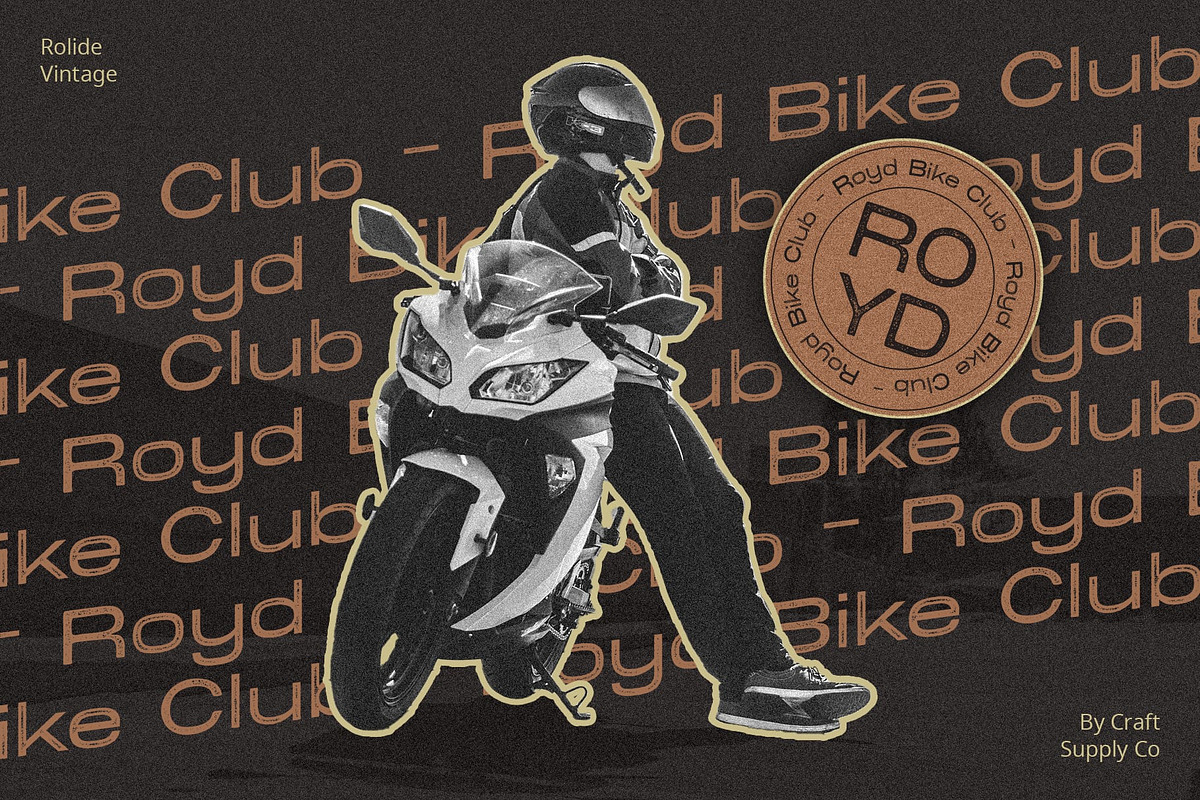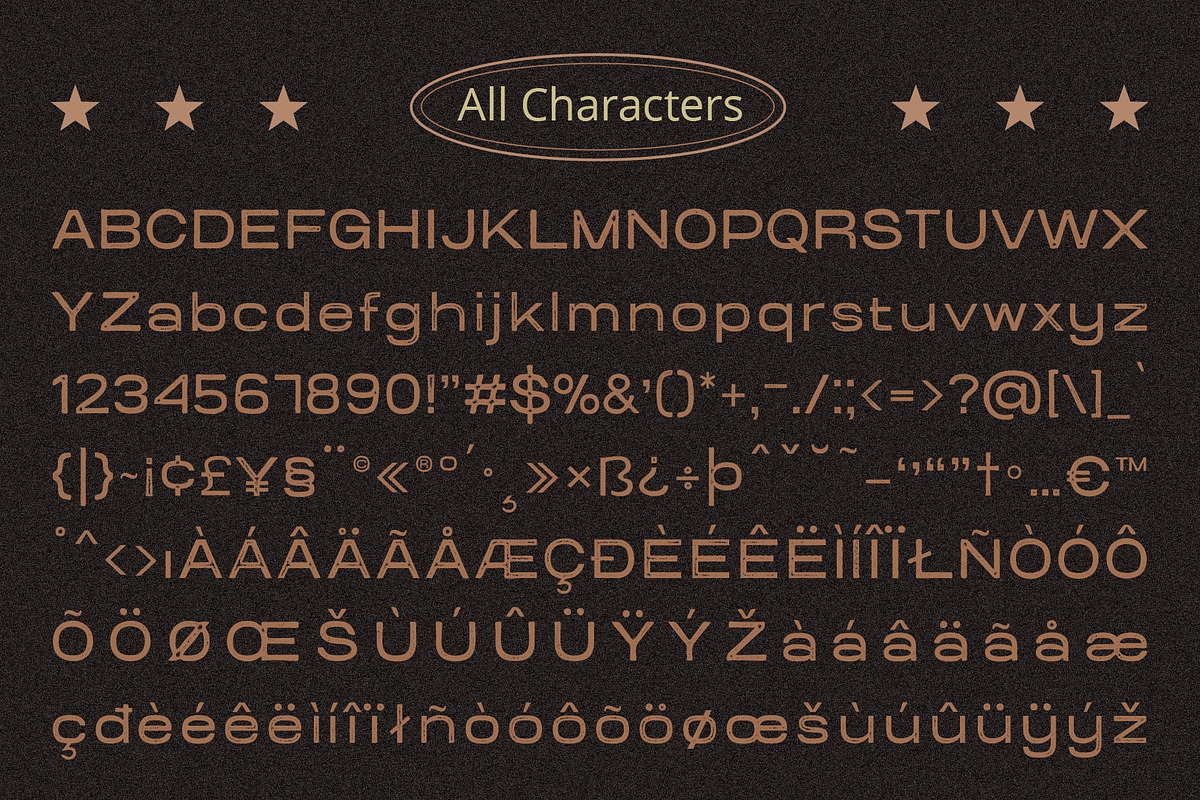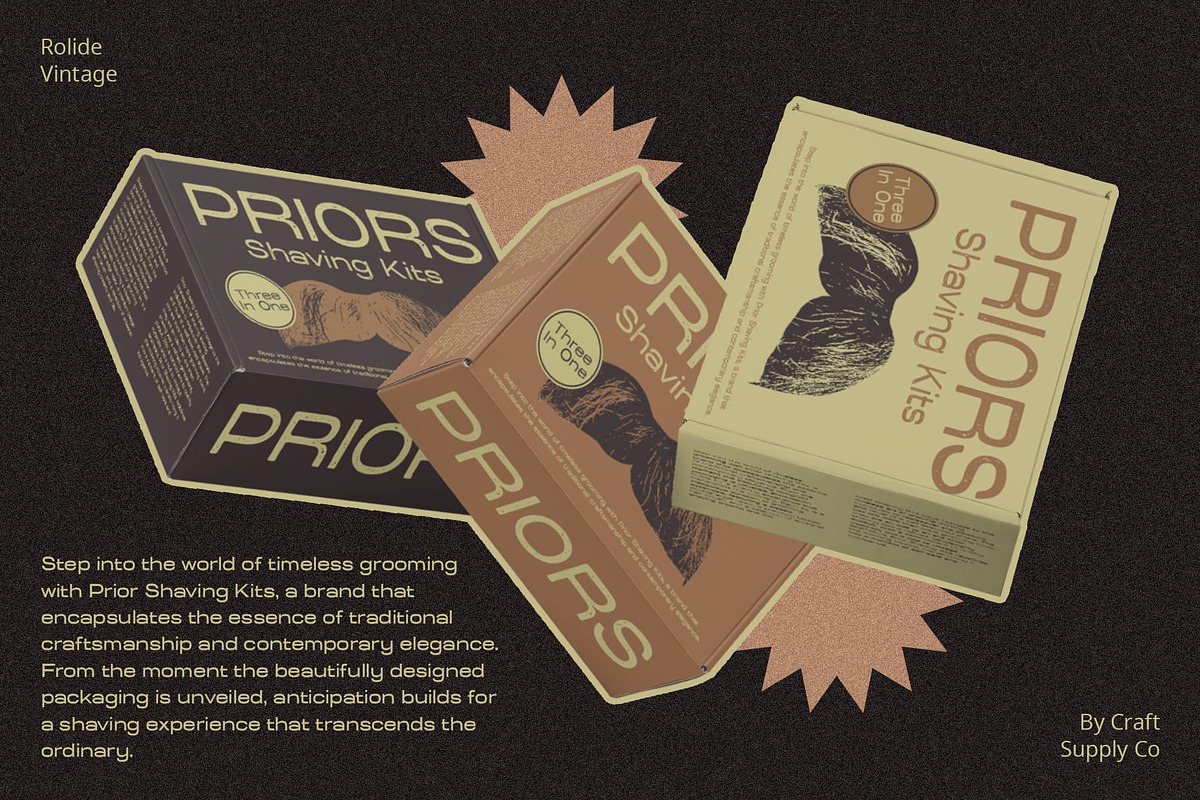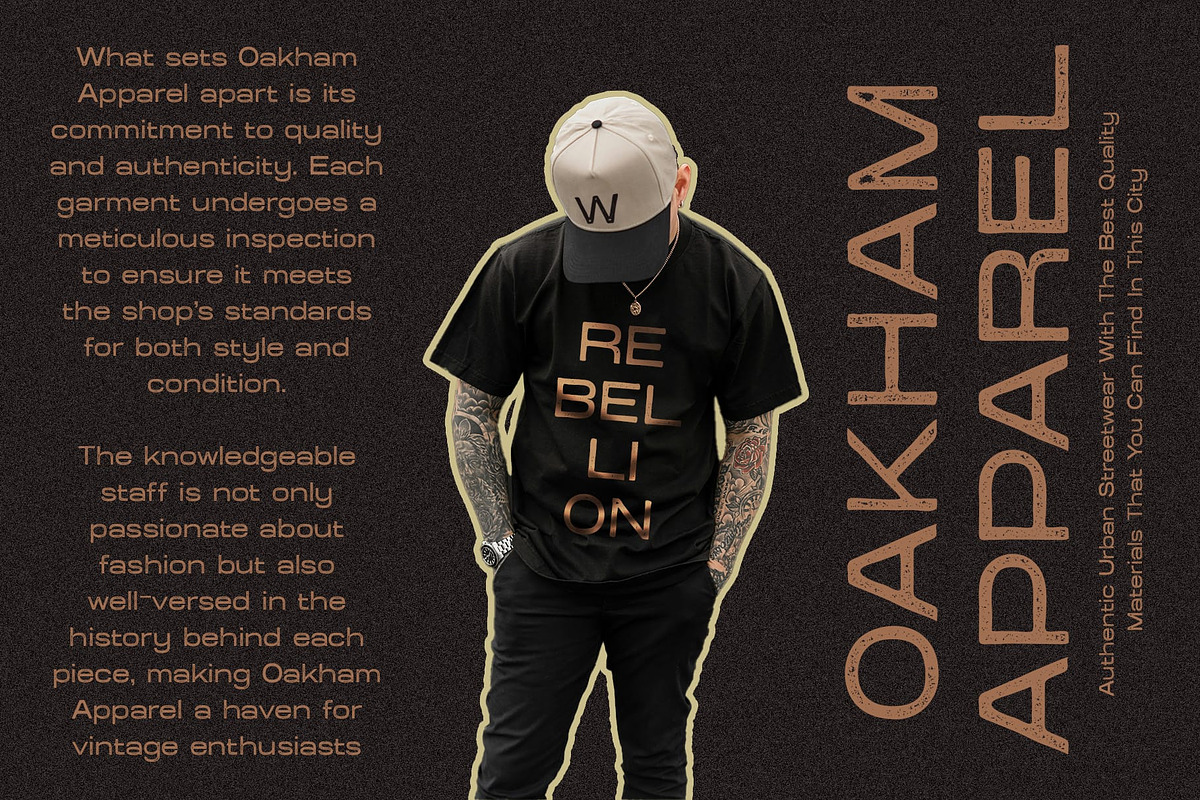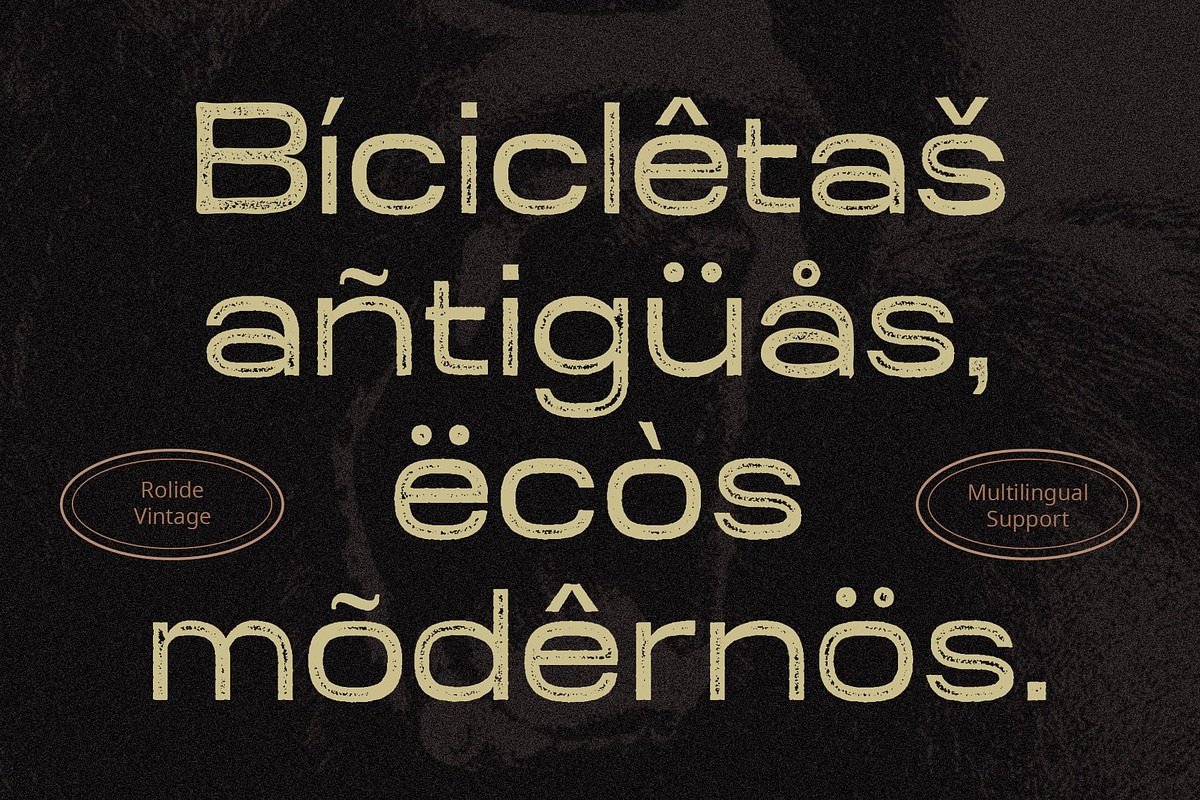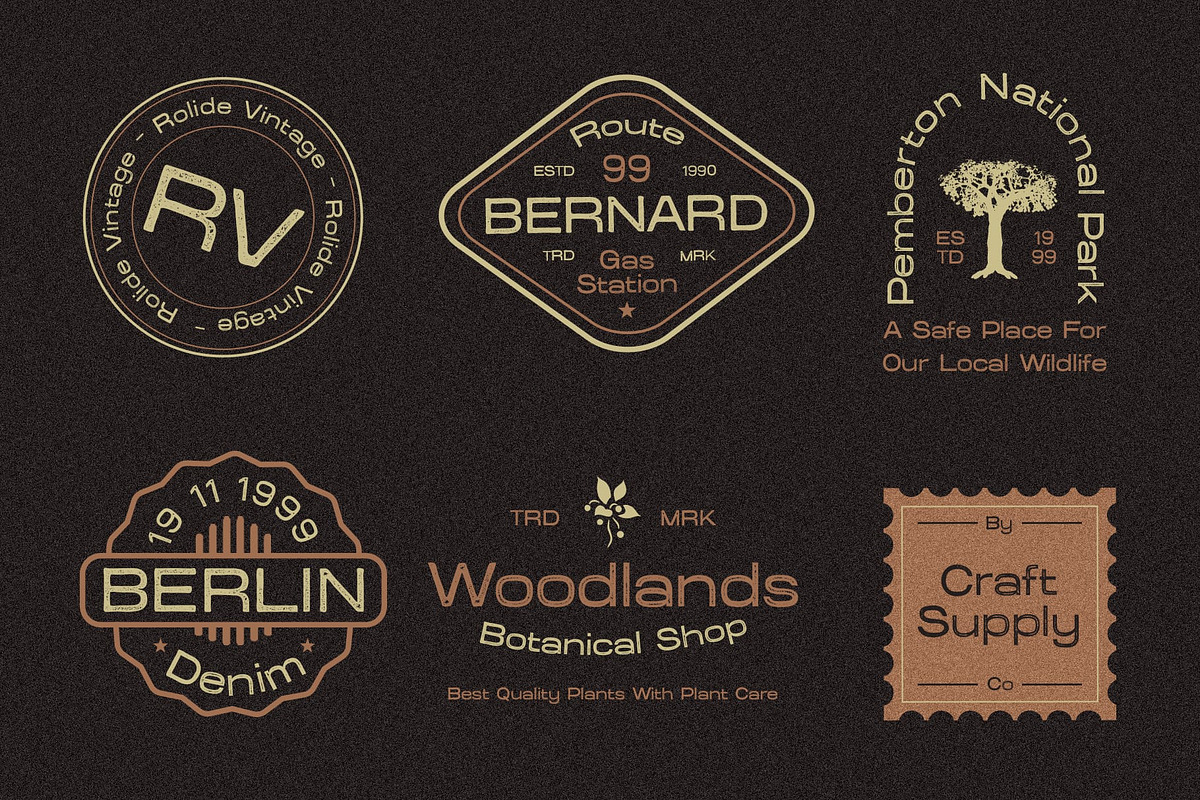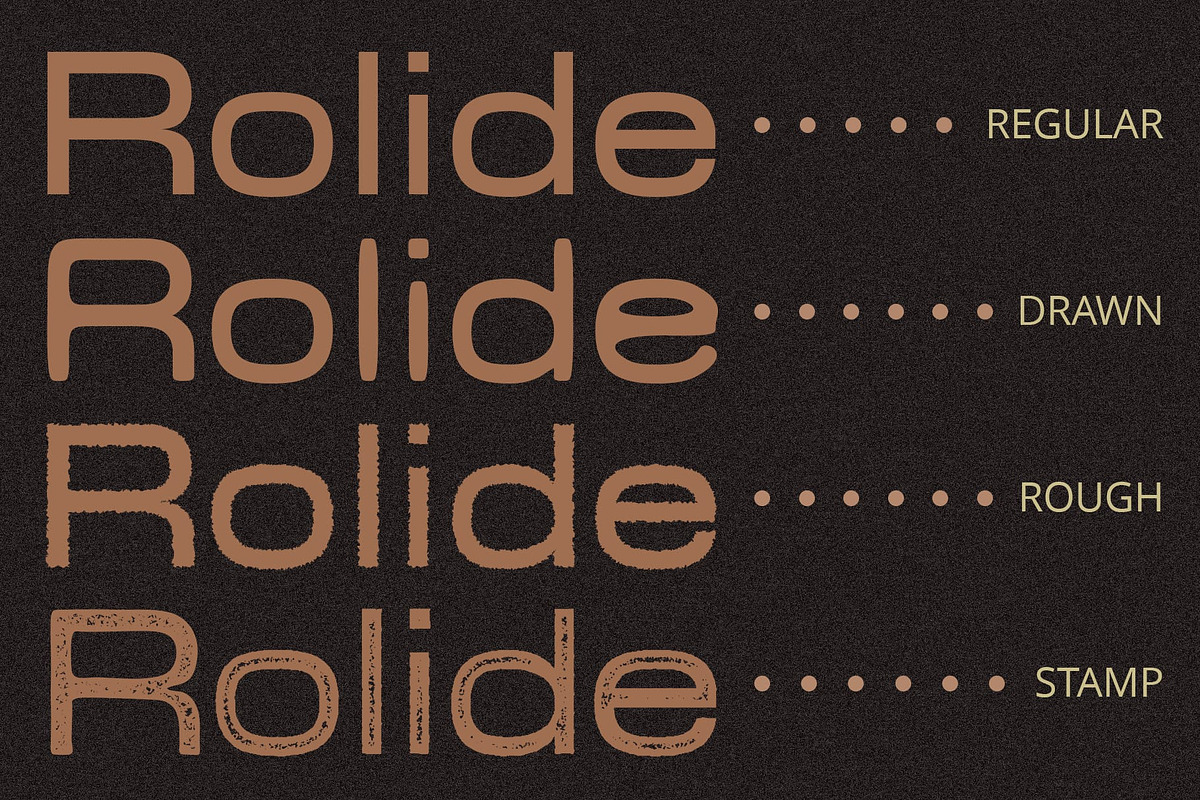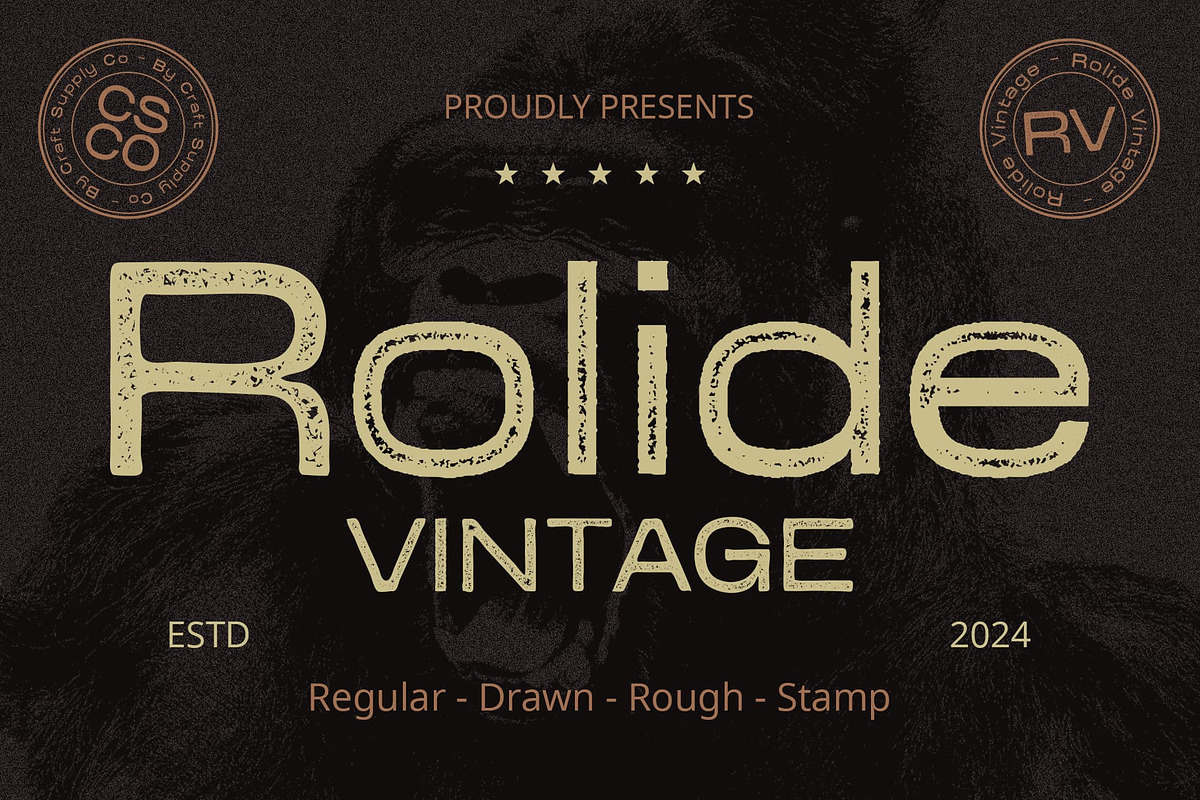
Rolide Vintage
Rolide Vintage: Embracing Boldness
Boxy and Wide Sans Serif Rolide Vintage features a distinctive boxy and wide sans serif design that commands attention. Its bold shapes and spacious letterforms make it stand out in any display setting.
Vintage Rough Effects With vintage rough effects, Rolide Vintage exudes an air of authenticity and character. These textured elements add depth and personality to each letter, enhancing its visual impact.
Eye-Catching Display Font This font is not just another font; it’s an eye-catching display font that demands to be noticed. Its combination of boldness and vintage charm ensures that it leaves a lasting impression on viewers.
Versatile Usage From posters to packaging and everything in between, This font is versatile enough to elevate any design project. Its bold and distinctive appearance makes it suitable for a wide range of applications, ensuring that it never fails to captivate the audience.
Boldness with Vintage Charm In conclusion, This font embodies the perfect blend of boldness and vintage charm. Its boxy and wide sans serif design, coupled with vintage rough effects, makes it an ideal choice for eye-catching display purposes. Whether used for branding, advertising, or any other creative endeavor, Rolide Vintage is sure to make a statement and leave a lasting impression.
- Rolide Regular
- Rolide Drawn
- Rolide Rough
- Rolide Stamp